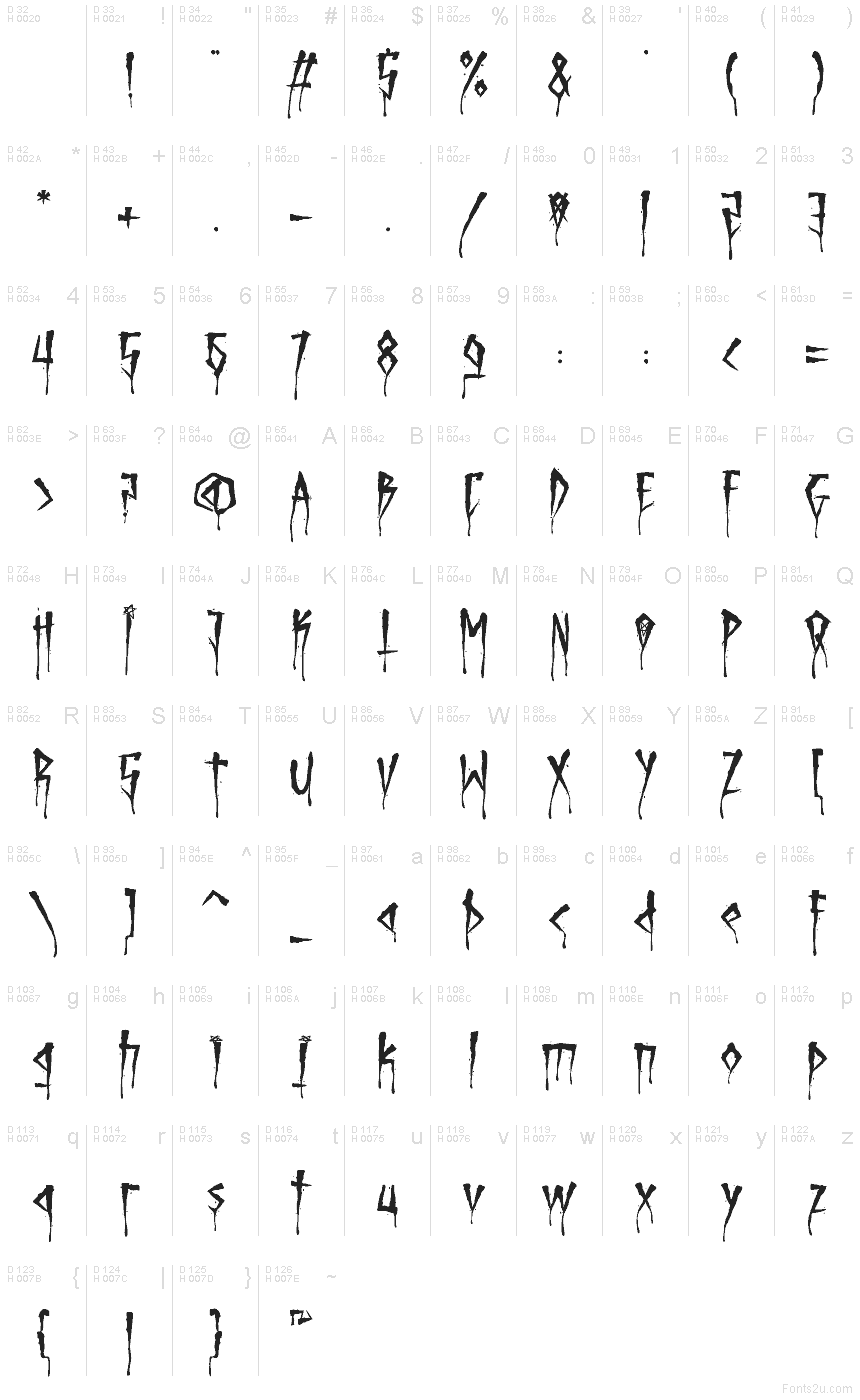
Brutal Brushstrokes Six
Brutal Brushstrokes Six font by PutraCetol Studio is a free halloween brush display font. Born from the Brutal Brushstrokes family, it slashes across the page with jagged strokes, inky splatters, and needle-like drips that feel freshly painted and a little unhinged. The rhythm is sharp and irregular, giving headlines a raw, frantic energy that reads loud even at a glance.
This free font shines on haunted house posters, slasher movie titles, escape room signage, metal band merch, thriller book covers, and eerie social countdowns. Using Brutal Brushstrokes Six at oversized scales with slightly looser tracking amplifies the drippy tension. Pair it with a clean condensed sans for body copy to keep the chaos focused and the message clear.